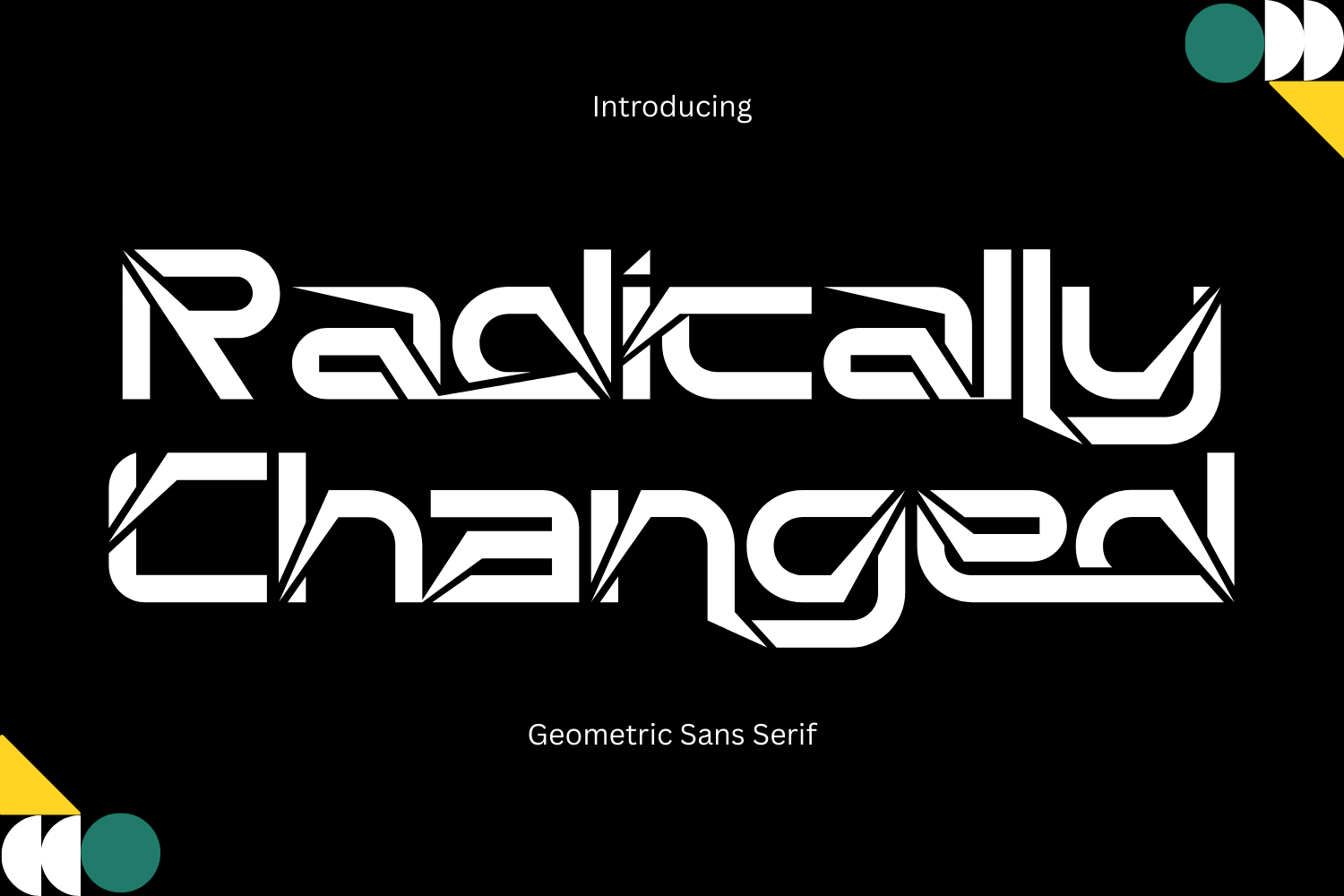
Radically Changed - Futuristic Font
Radically Changed - Futuristic Font – Futuristic Geometric Sans-Serif Display Font, a bold futuristic sans-serif display font inspired by sharp geometry, digital aesthetics, and sci-fi design language. The letterforms feature angular cuts, dynamic diagonals, and distinctive split strokes that create a strong sense of motion, technology, and innovation. Each character is carefully constructed with precise edges and mechanical balance, giving the font a powerful and modern presence. Radically Changed is perfect for technology branding, sci-fi posters, gaming titles, cyberpunk visuals, esports logos, UI headers, futuristic packaging, and experimental editorial design. Its aggressive yet clean structure makes it ideal for headlines and display use where impact and originality are essential.
🔤Features:
- Uppercase & Lowercase Letters
- Around 100 Special Ligatures & Alternates
- Accented Characters for multilingual support
🔤About 100 ligatures combined with Stylistic Alternates Font:
ac ad al an ar as at au av be ca ce ch co ct de di ea ec ed ee el em en ep er es et fe fo fr ge ha he hi ho ie ic il in io ir is it ju ke la le li ll lo ly ma me mi nc nd ne ng no nt ns oc of om on oo op or ot ou ow pa pr ra rd re ri ro rs rt se sh si so ss st ta te th ti to tr tt um un ur ve wi wo